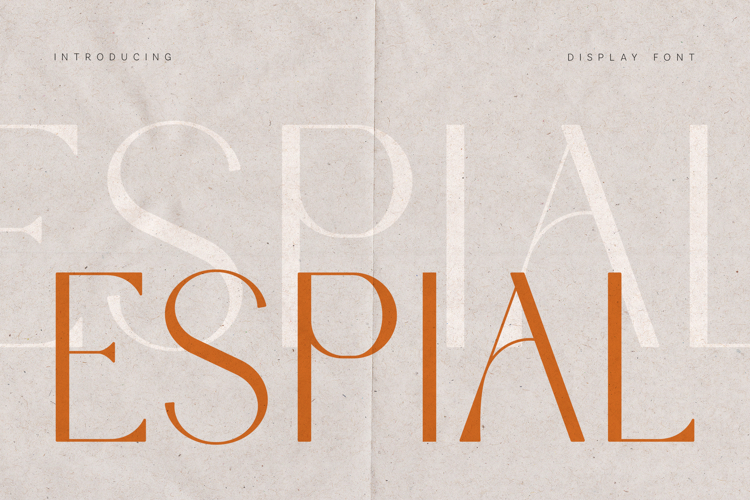
ESPIAL is an elegant Art Deco display serif built for high-end branding and editorial design.
Sharp triangular terminals, sculpted curves, and refined contrast give ESPIAL a timeless, premium voice—perfect for fashion headlines, luxury packaging, boutique identities, and modern editorial layouts. It’s expressive without being loud, and classic without feeling dated.